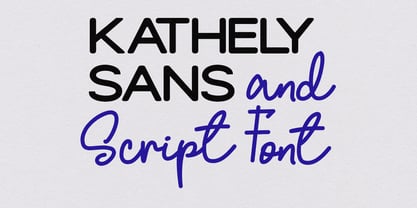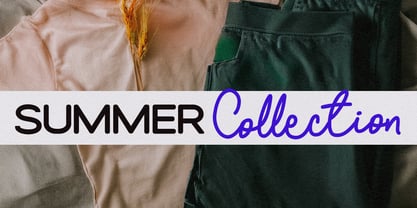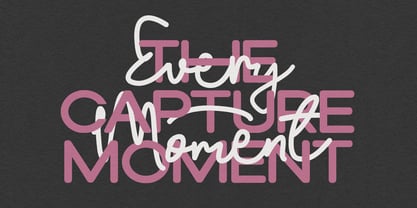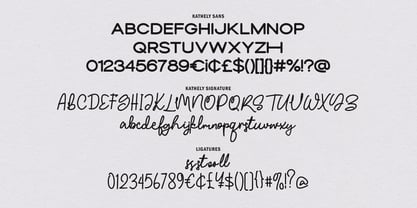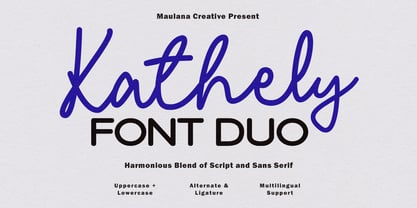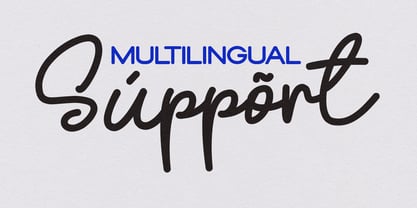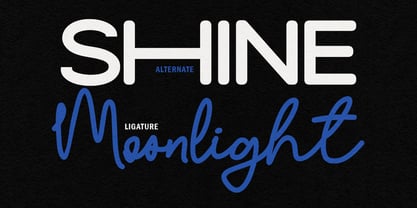
MC Kathely
by Maulana Creative
The MC Kathely Font Family was designed by Gilang Maulana and published by Maulana Creative. MC Kathely contains 2 styles and family package options. More about this family
Kathely is a sophisticated font duo designed to bring a balanced, professional, and organic feel to your creative projects. This pair features Kathely Sans, a clean and bold monolinear sans-serif with modern geometric touches, and Kathely Signature, a flowing, expressive script that mimics natural handwriting. Perfect for branding, wedding invitations, social media graphics, and design, this duo offers seamless versatility. With built-in ligatures, stylistic alternates, and full multilingual support, Kathely allows you to create high-contrast typography that is both legible and full of character.